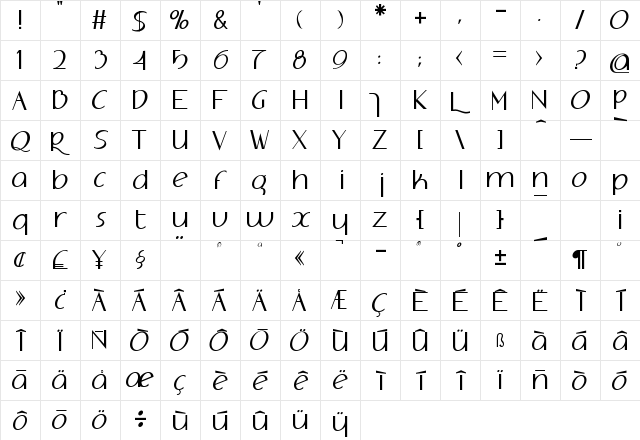
Adolphus Regular
Design Context for Adolphus Typeface
Adolphus is a composed and adaptable typeface that performs quietly and consistently across a wide range of design contexts.